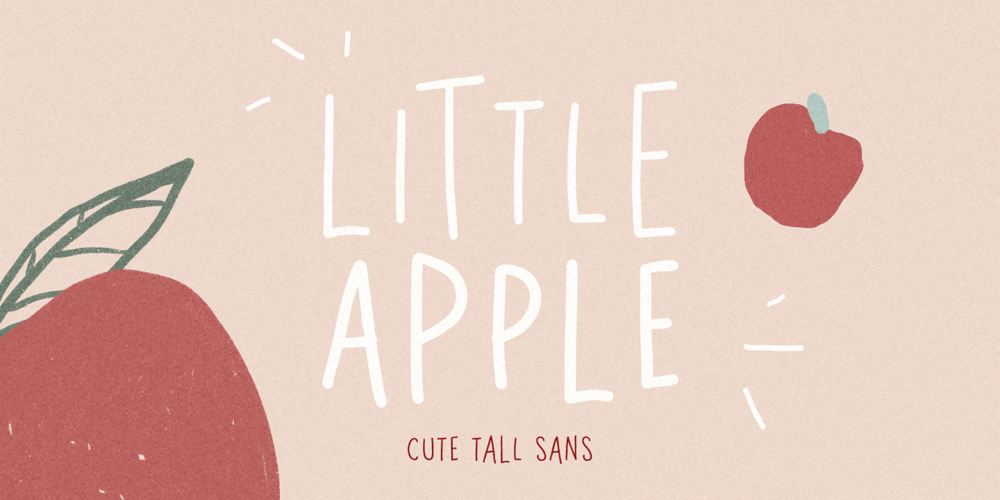
Little Apple Font Family was designed by Sarid Ezra and published by Bale Type. Little Apple contains 3 styles and family package options. Little Apple is a cute and tall sans serif font. It is both friendly and fun and can be used for various creations that require a neat touch. You can combine the uppercase and lowercase to get more natural lettering. Little Apple support multi language.